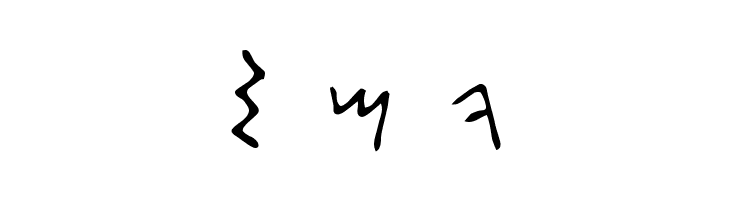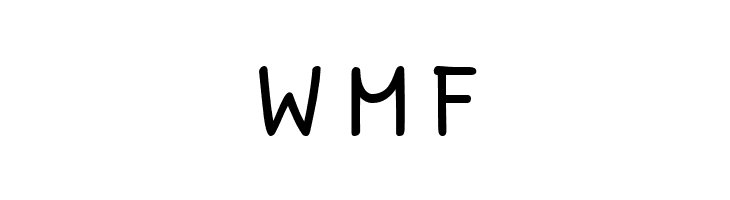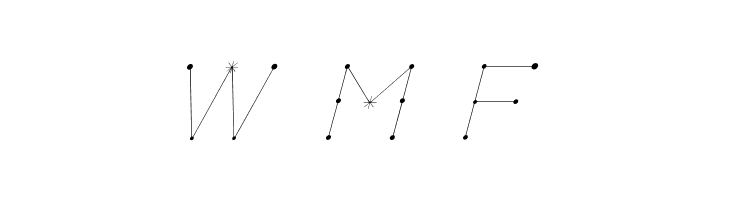
A modern sans-serif font with clean lines and excellent readability.
A bold, classic serif font with strong, elegant strokes.
A modern serif font with medium contrast and elegant lines.
A modern sans-serif font with balanced proportions and open forms, offering clarity and elegance.
A modern, clean sans-serif font with excellent readability and geometric design.
A charming handwritten font with fluid, continuous strokes and a personal touch.
A playful, handwritten font with rounded, casual letterforms.
A bold, playful font with thick strokes and a modern, decorative style.
A playful set of character-based icons with unique expressions.
A bold, distressed font with a vintage, textured appearance.
A bold, distressed font with a grunge texture for an edgy, vintage look.
A bold, distressed font with a rugged, vintage appearance.
A geometric, modern font with consistent stroke width and sharp angles.
A futuristic, angular font with bold, geometric shapes.
A tall, slender font with thin strokes and a modern, elegant style.
A playful, handwritten font with a quirky and informal style.
A playful, condensed font with tall, narrow characters and consistent stroke width.
A playful, handwritten font with rounded, informal letterforms.
A playful, handwritten font with rounded edges and a casual style.
A condensed, tall, and playful font with a modern aesthetic.
A bold, hand-painted style font with a dynamic and rebellious look.
A tall, narrow, and bold font with a modern, geometric style.
A tall, narrow font with a modern, geometric style.
A rustic, hand-drawn collection of decorative elements and icons.
A bold, textured slab serif font with a shadow effect, perfect for vintage and rustic designs.
A bold, rustic font with a distressed texture and vintage appeal.
A casual, cursive script font with a friendly and handwritten style.
A handmade, rustic font with a playful, informal style.
A bold, modern sans-serif font with strong, uniform strokes.
A modern, light sans-serif font with a clean and minimalist design.
A modern, light, italic font with clean lines and a dynamic slant.